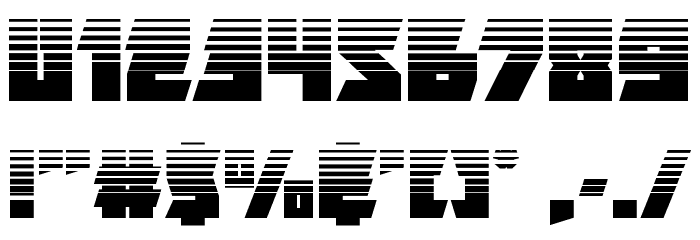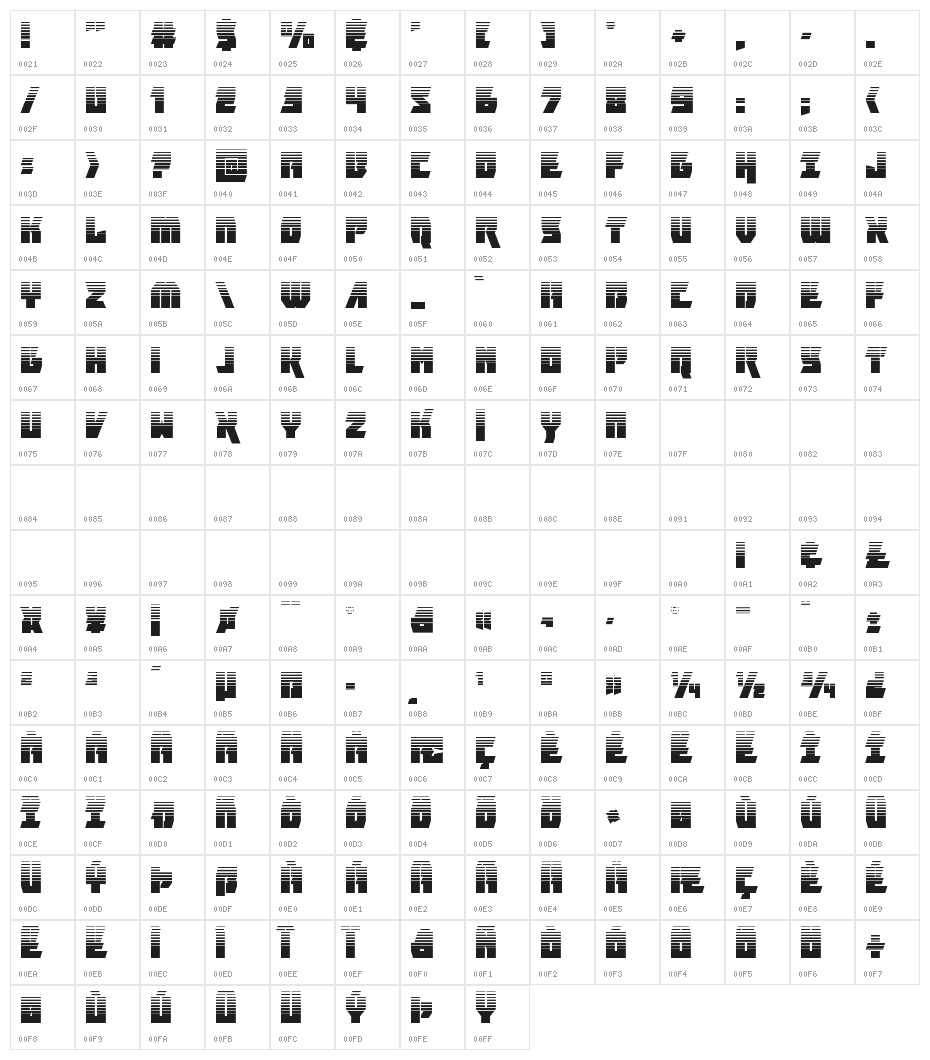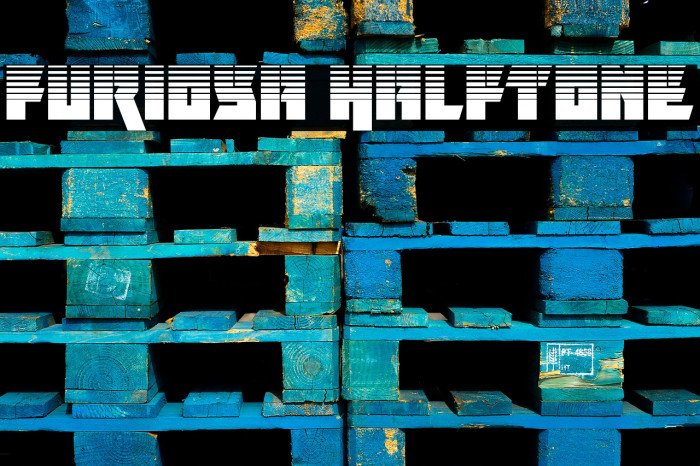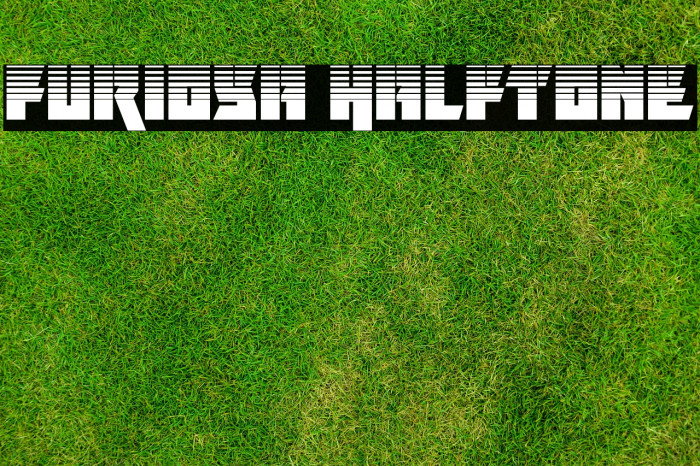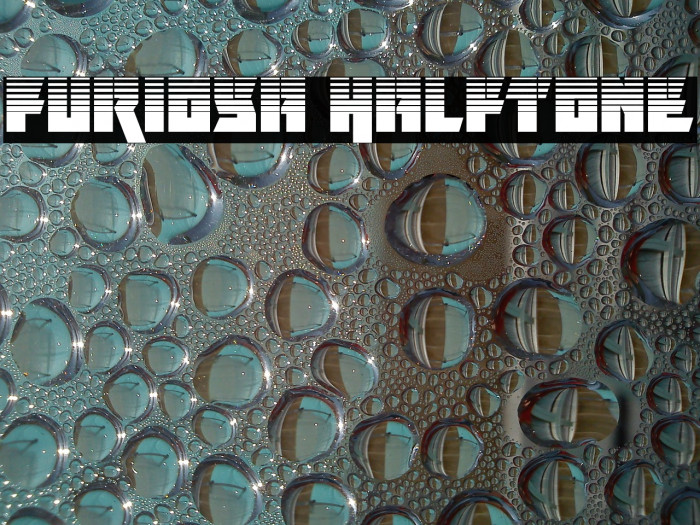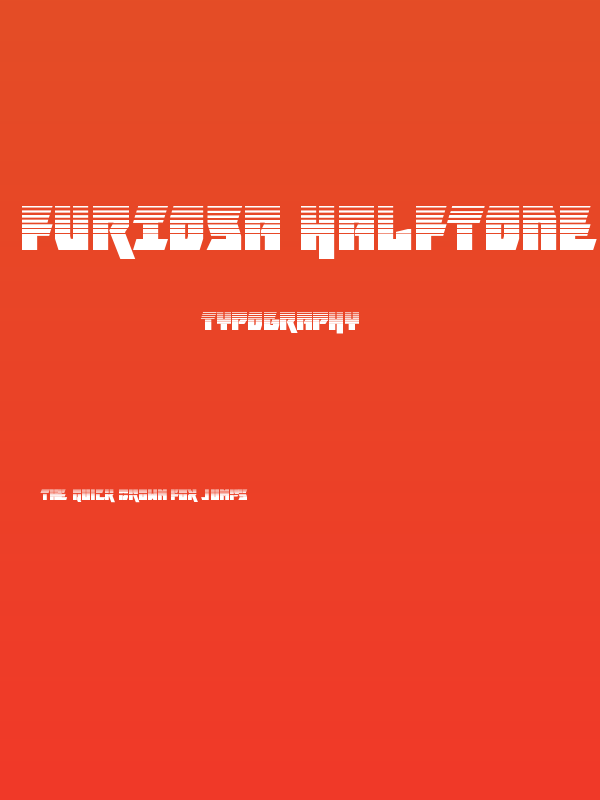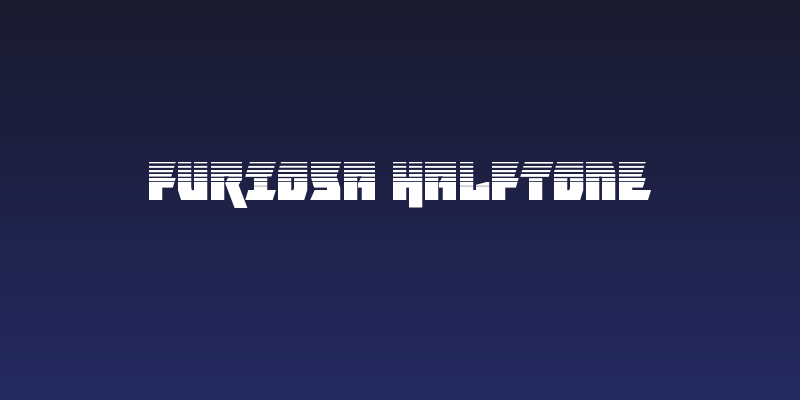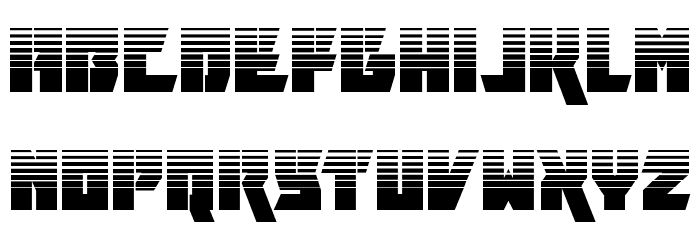
Furiosa Halftone Font
Furiosa Halftone Description
This font features a bold, geometric design with a distinct halftone effect, creating a sense of depth and texture. The characters are constructed with horizontal lines that vary in thickness, giving a layered appearance. The uppercase and lowercase letters maintain a consistent style, with sharp angles and a futuristic aesthetic. The numerals and special characters are equally bold and maintain the same halftone pattern, ensuring uniformity across all glyphs. This font is ideal for projects that require a modern, edgy look with a touch of retro digital flair.
| Proposed Projects | Ideal for digital art, video game graphics, sci-fi themed posters, and modern branding. |